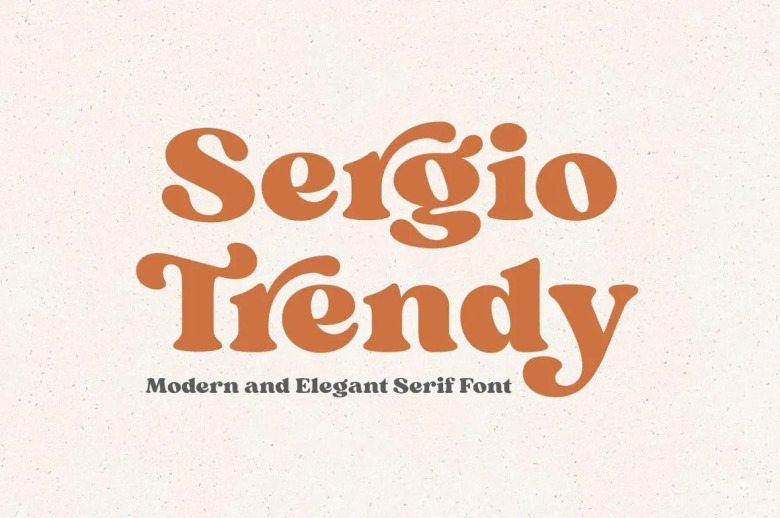
Sergio Trendy Font
Sergio Trendy Font is a vintage style serif typeface with an elegant and modern touch, this font draws from a wide variety of characters. Sergio Trendy is well-suited for advertising, branding, logotypes, packaging, titles, headlines and editorial design.